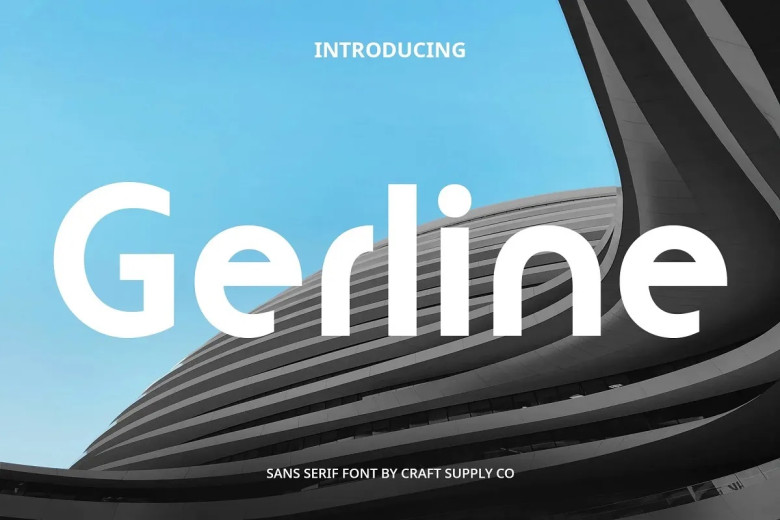
Gerline Font
Gerline – sans-serif typeface, clean cut and very businessy. Its clean and professional design also makes it suitable for most of business use, freelance or even web design. Gerline Font gives a perfect classic looks to your various projects such as Posters, Movie titles, New creative products, Logos magazines headlines and short text boxes etc. It’s got a clean modern look which seems perfect for whatever I’m working on.
Gerline Font is readable in ways that will make it easier to get the message across. Because this font is also live in print and electronic media its size looks very small which is clear.
Gerline Font could be the best way for it if you need business card / website / presentation etc that using a modern looks. WRAPPER :get Description; instance(describing: Gerline Font. self).pop() Thanks to the classic design your work will always be trendy and look stylish no matter how long ago it was completed.
Gerline Sans Serif Font